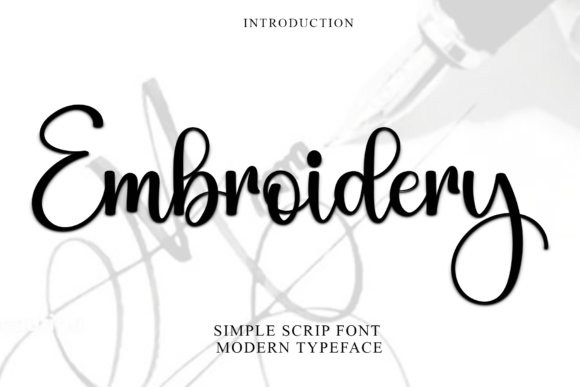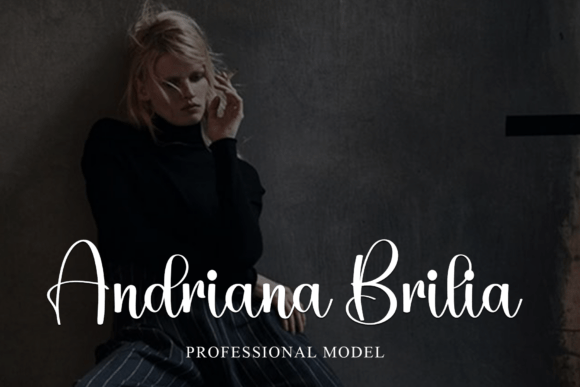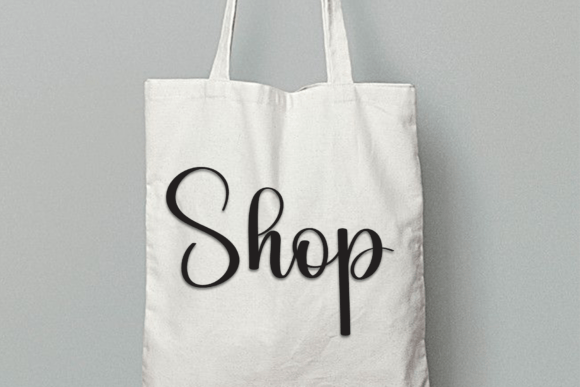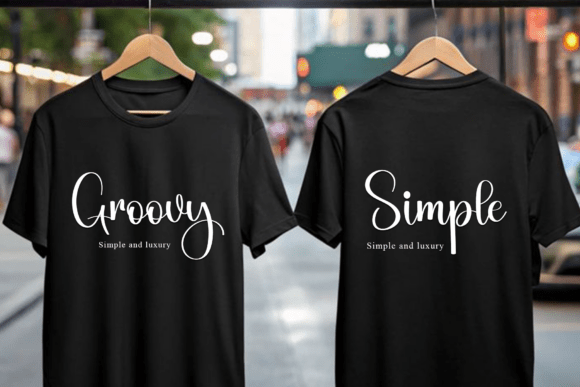
Embroidery Font
About the Embroidery Font
Presenting Embroidery Font, a unique and stylish typeface that will make your work stand out. Embroidery is a festive and merry typeface that captures the spirit of the holiday season. With its decorative elements and whimsical flair, it adds a touch of enchantment to your designs. Perfect for greeting cards, gift tags, and holiday-themed projects, this font brings a cheerful and nostalgic ambiance to your words. Let your typography shine with the magic of Beautiful Font!
Embroidery Font’s playful, decorative nature makes it ideal for headlines, short text blocks on packaging, or festive posters. Its whimsical style would be perfect for branding projects related to crafts, children’s products, or holiday-themed businesses. Avoid using it for body text or lengthy paragraphs; its ornate details would hinder readability in larger blocks of copy. Similarly, it’s not suitable for user interfaces or applications requiring clear, concise typography.
This font pairs well with clean sans-serif fonts like Open Sans or Lato for a balanced contrast. For a more traditional feel, consider pairing it with a classic serif like Garamond or Times New Roman. A script font like Allura could add an extra layer of elegance, but use it sparingly to avoid overwhelming the design.
Embroidery Font’s core personality is cheerful and nostalgic, embodying a festive and slightly whimsical energy. Its strong visual character is best showcased in applications that celebrate this joyful spirit.
Embroidery Font Usage Examples
Embroidery Font Example